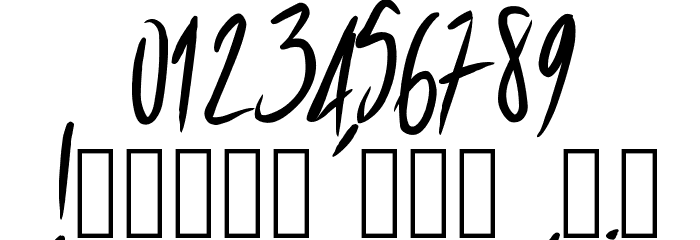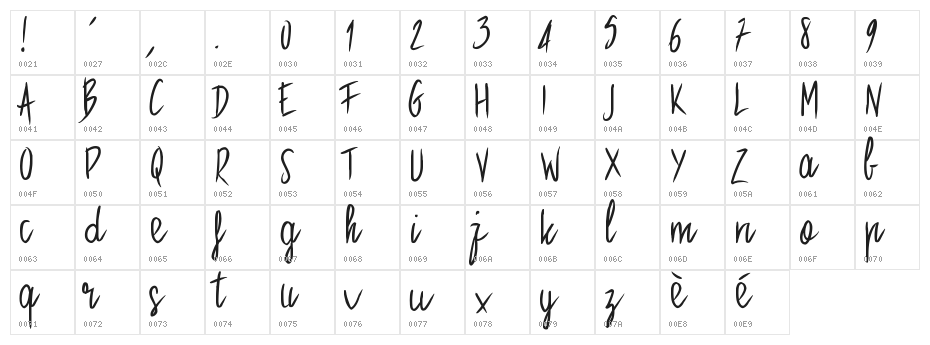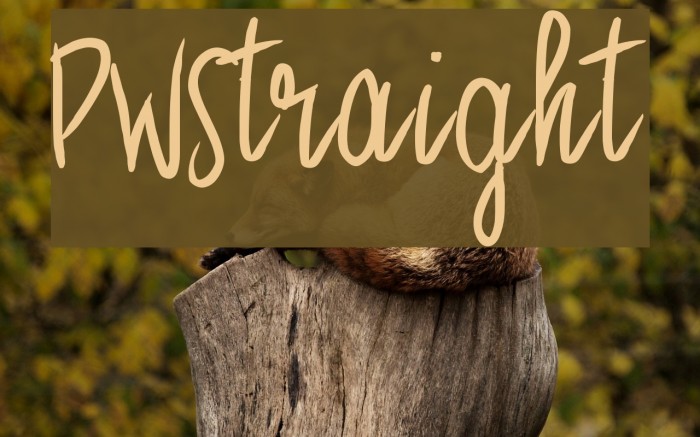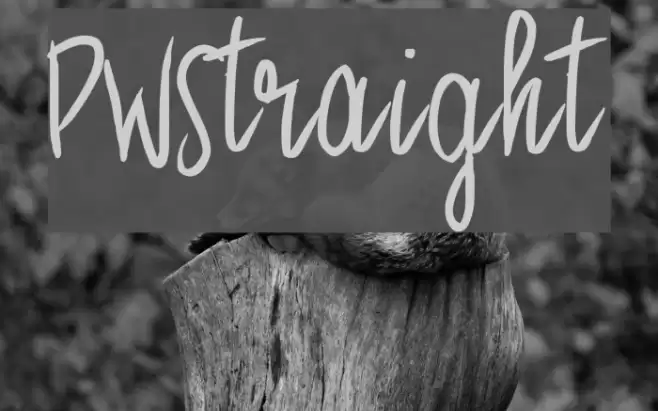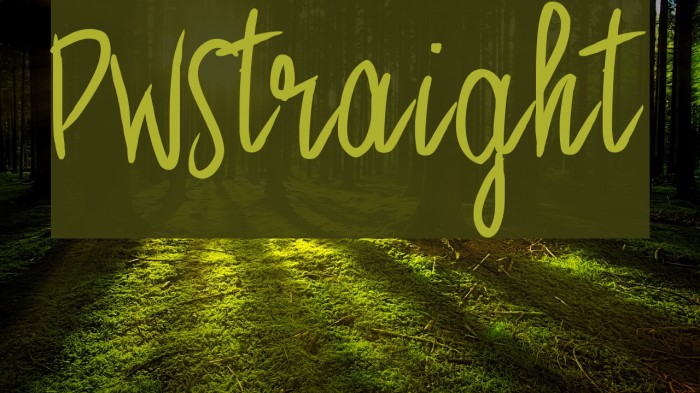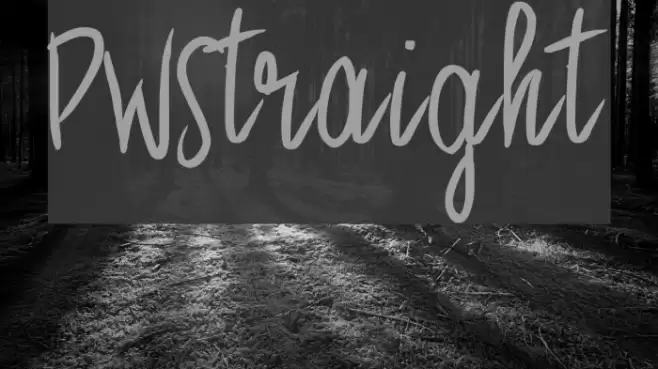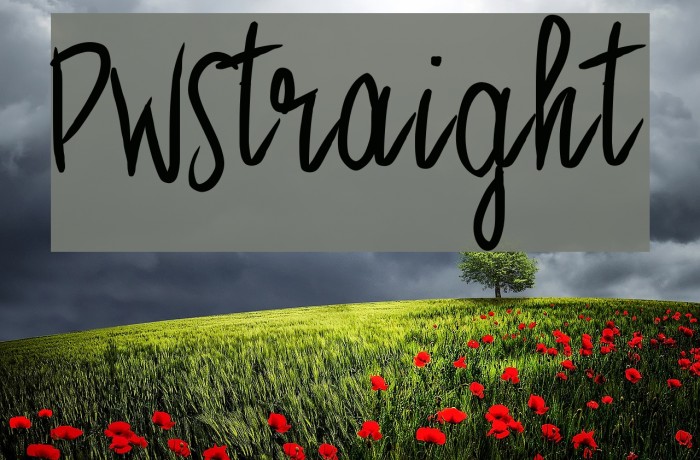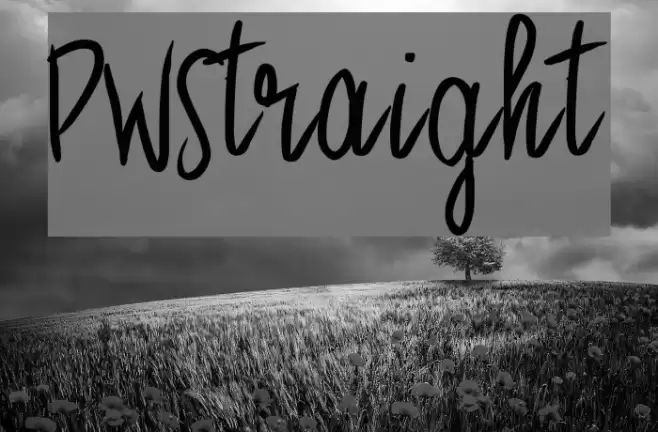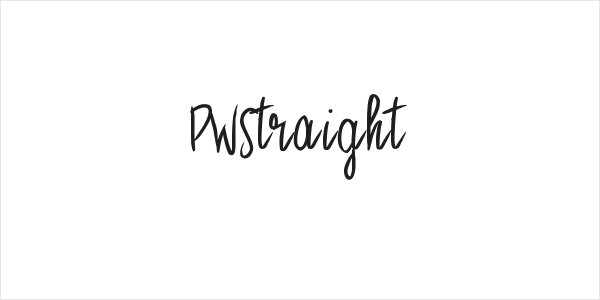
PWStraight Font
PWStraight Description
This font features a dynamic and expressive handwritten style, characterized by its fluid and elongated letterforms. The strokes are varied, with a noticeable slant that adds a sense of movement and energy. The uppercase letters are bold and prominent, while the lowercase letters maintain a consistent flow, enhancing readability. The numerals follow the same energetic style, making them stand out. This font is perfect for projects that require a personal touch, such as invitations, greeting cards, or branding materials that aim to convey a sense of creativity and individuality.
| Proposed Projects | Ideal for invitations, greeting cards, branding, and creative projects. |